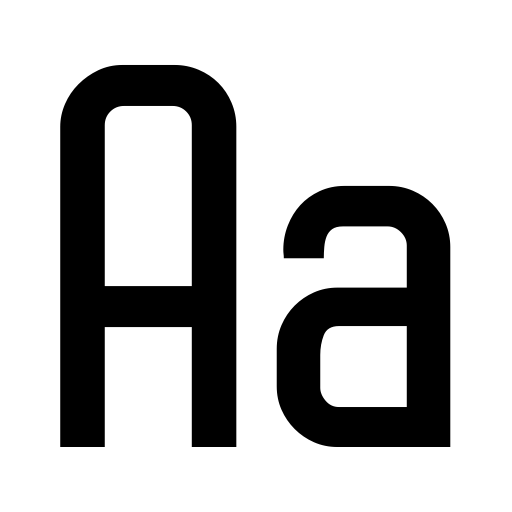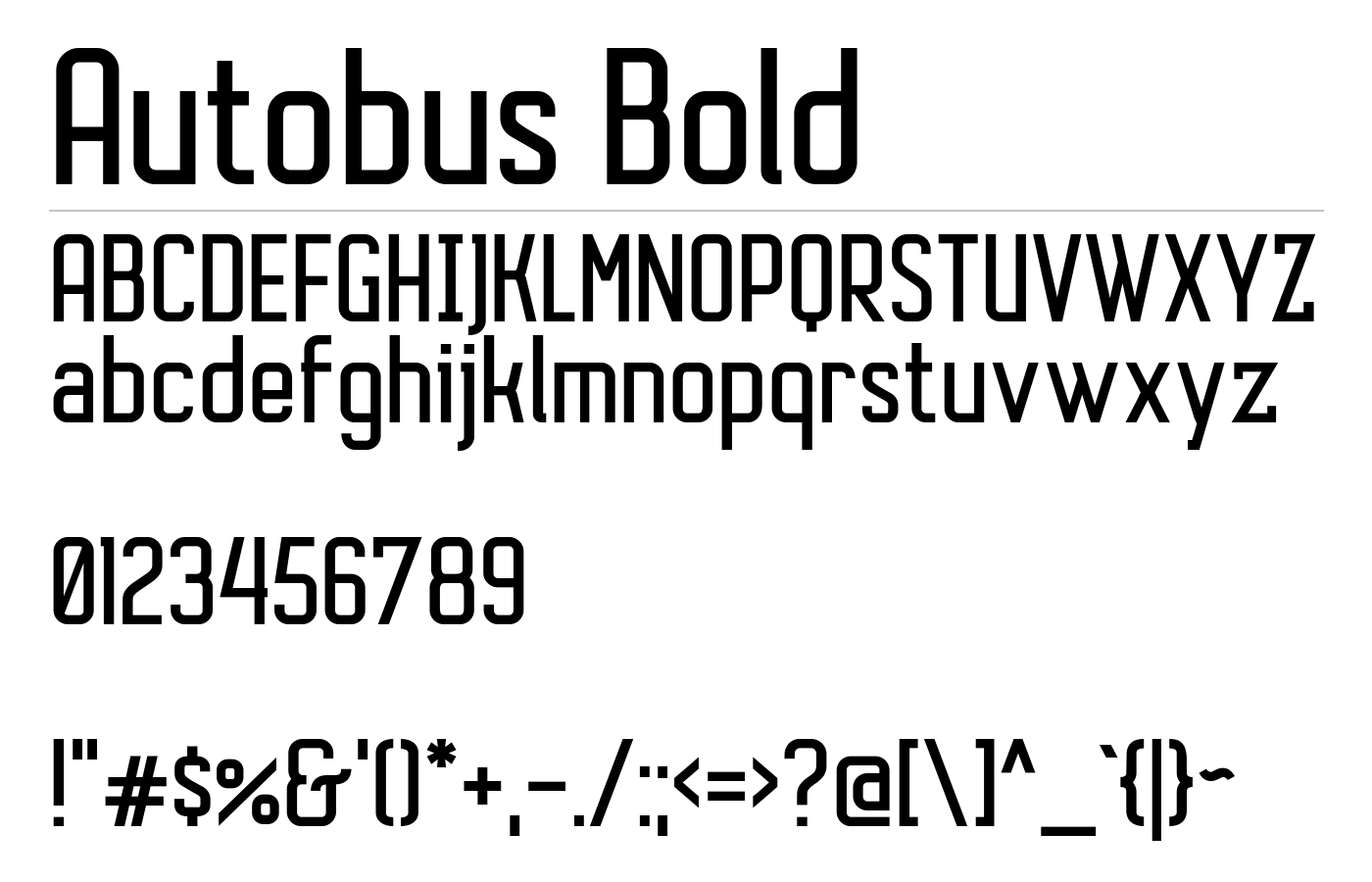
Autobus Bold is a tall, narrow sans serif font with a modern, geometric feel. Its clean lines and consistent stroke weight give it a strong, technical appearance that works well for contemporary branding, headlines, and display use where clarity and style are key. This font's condensed structure makes it perfect for tight spaces without losing legibility, ideal for posters, packaging, and edgy editorial designs.
Autobus Bold Font
About Autobus Bold Font
| Font family | Autobus Bold Font |
| Release date | 2017-08-01 |
| Designer | NimaType |